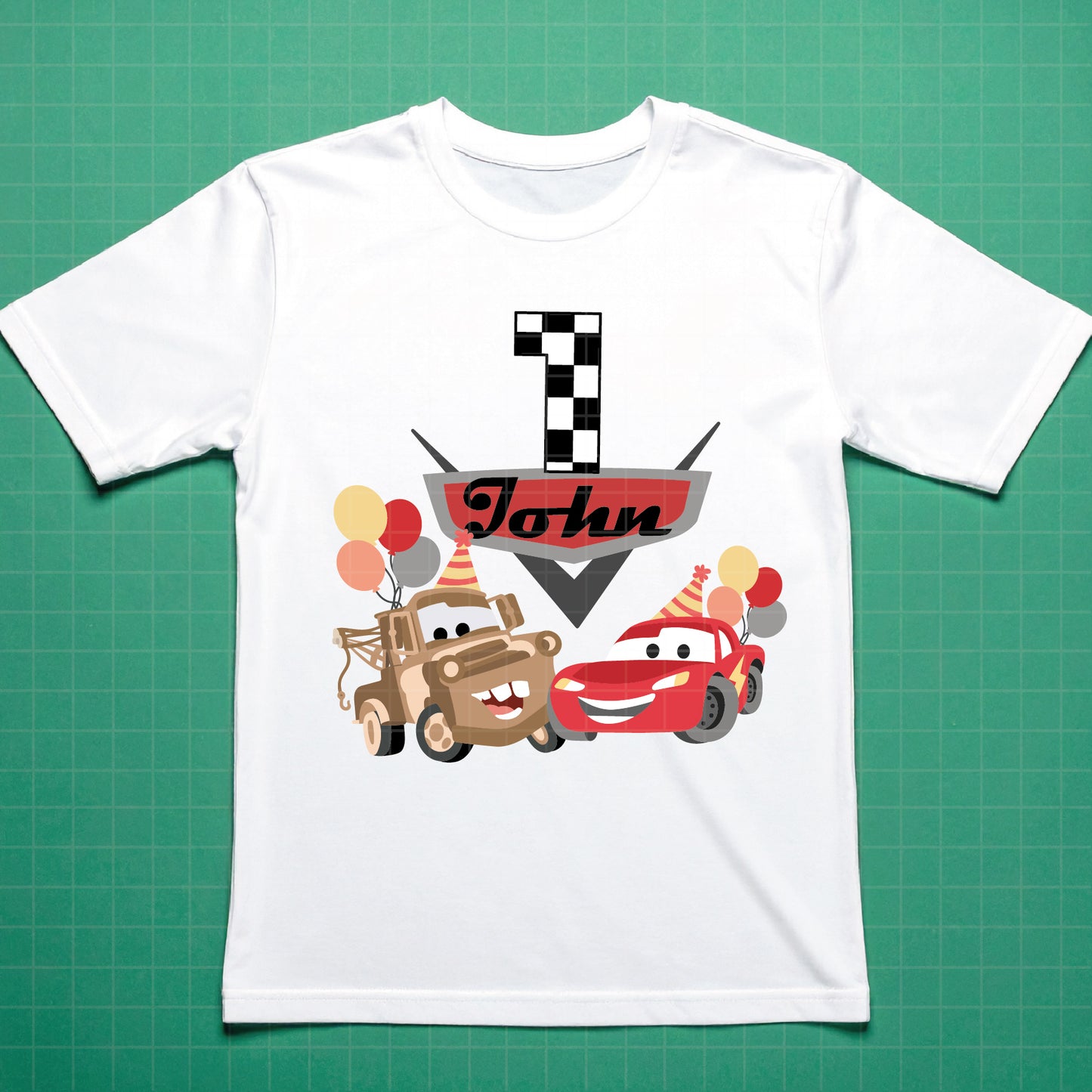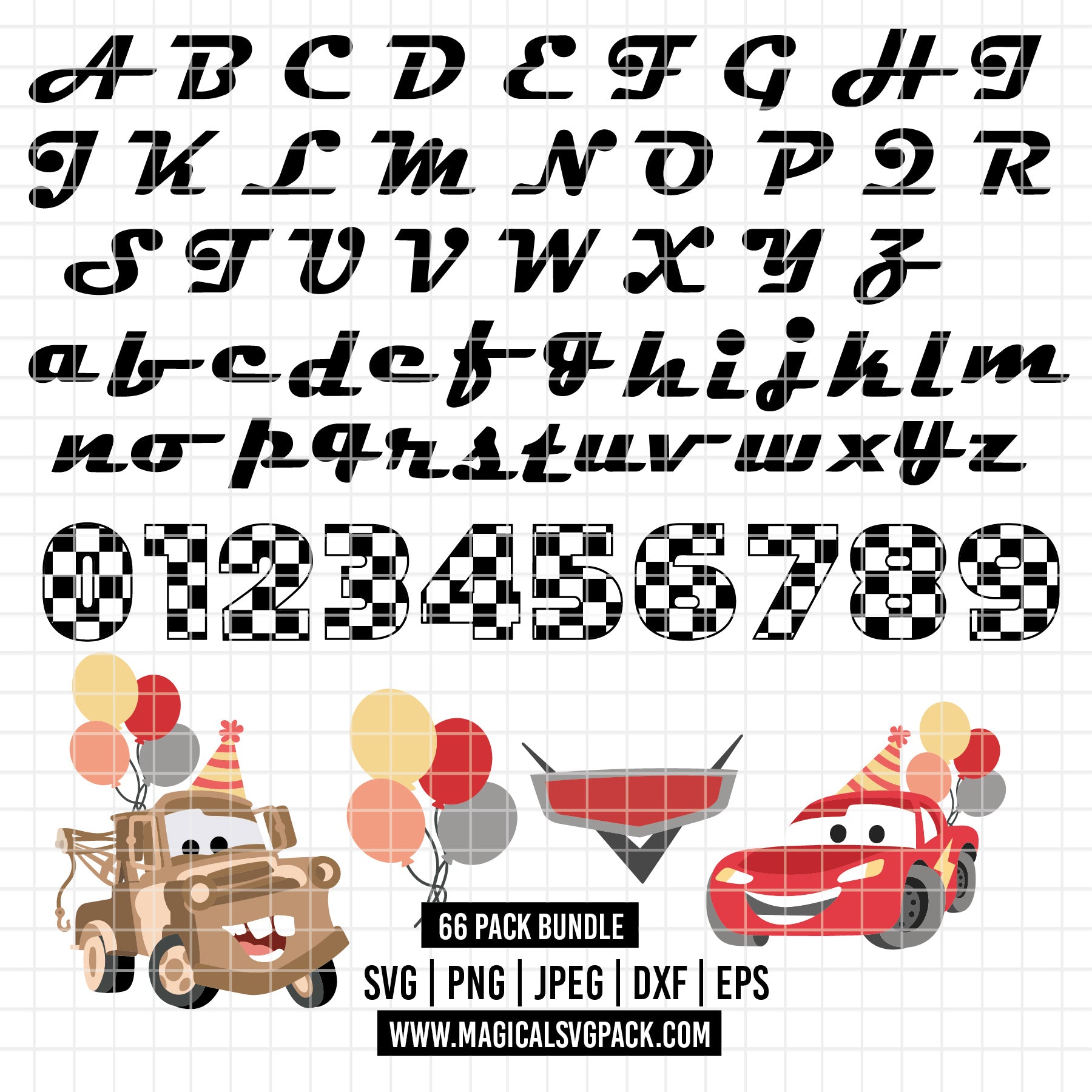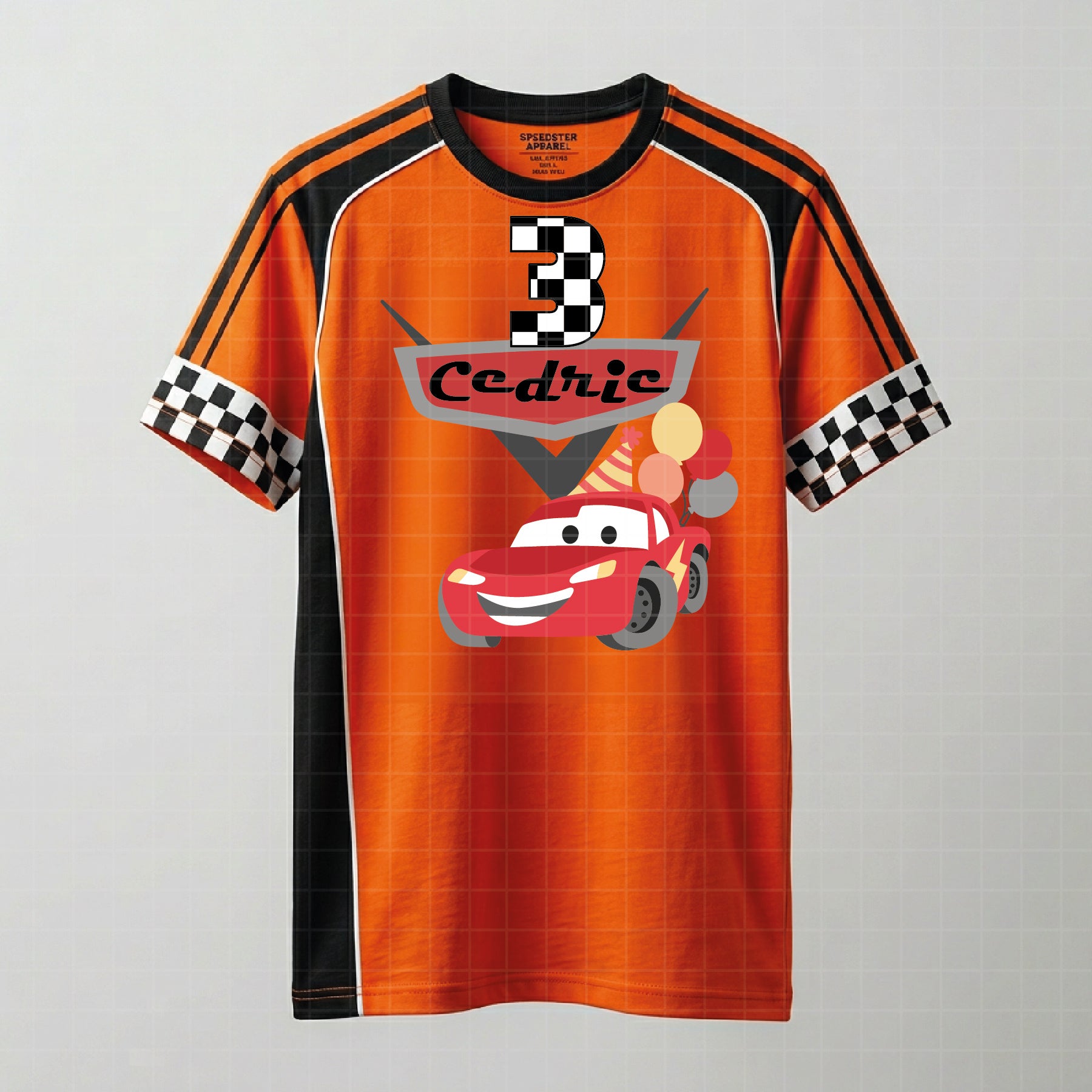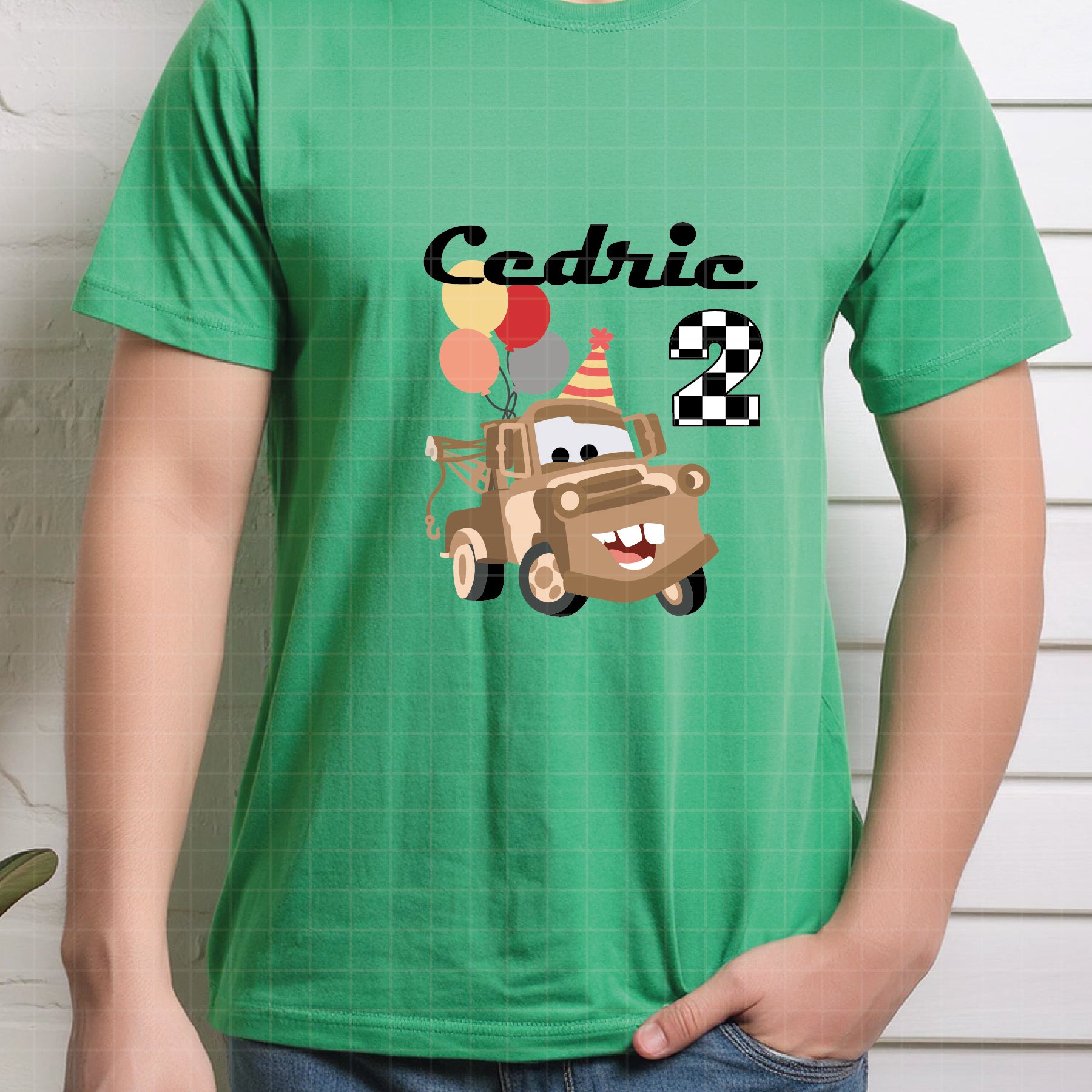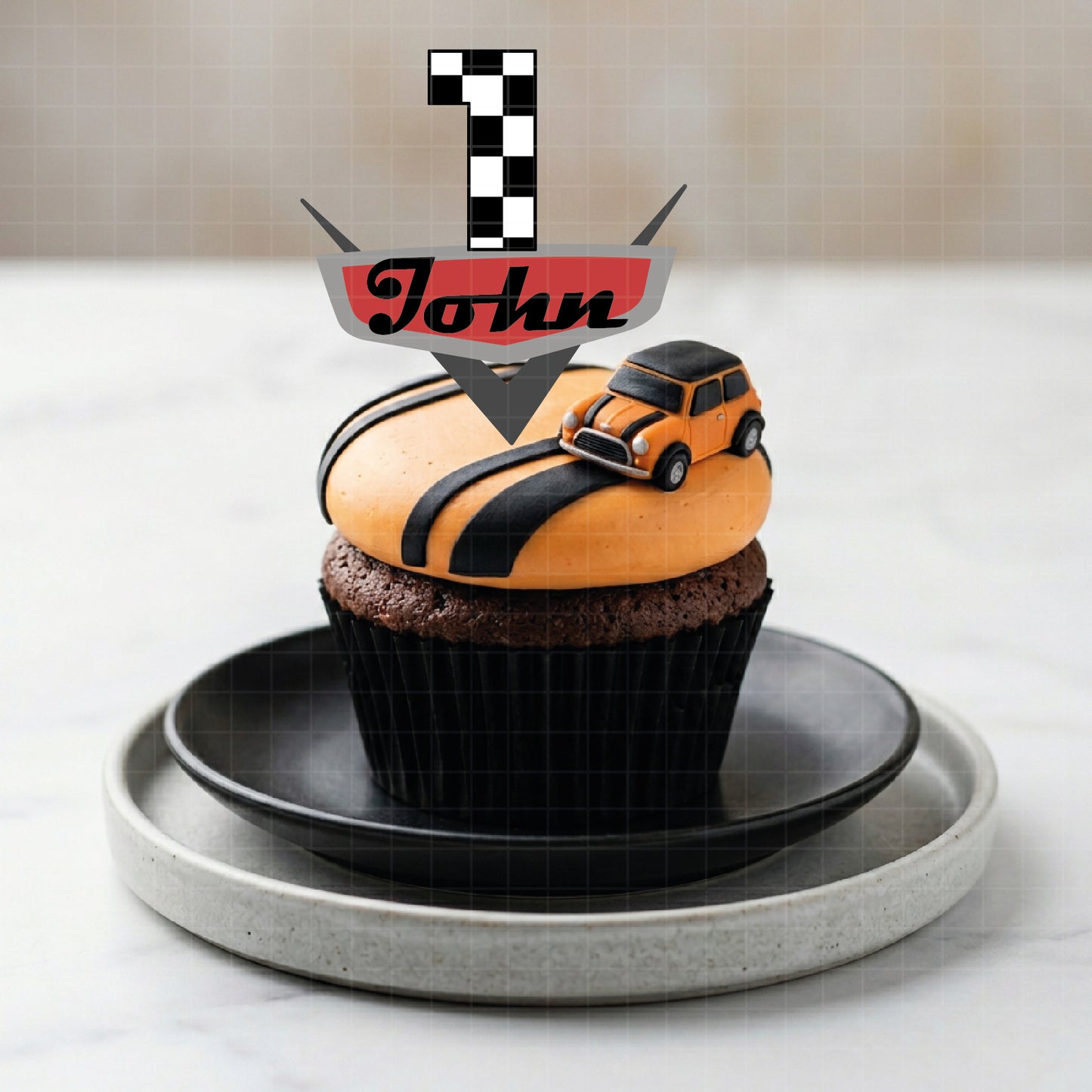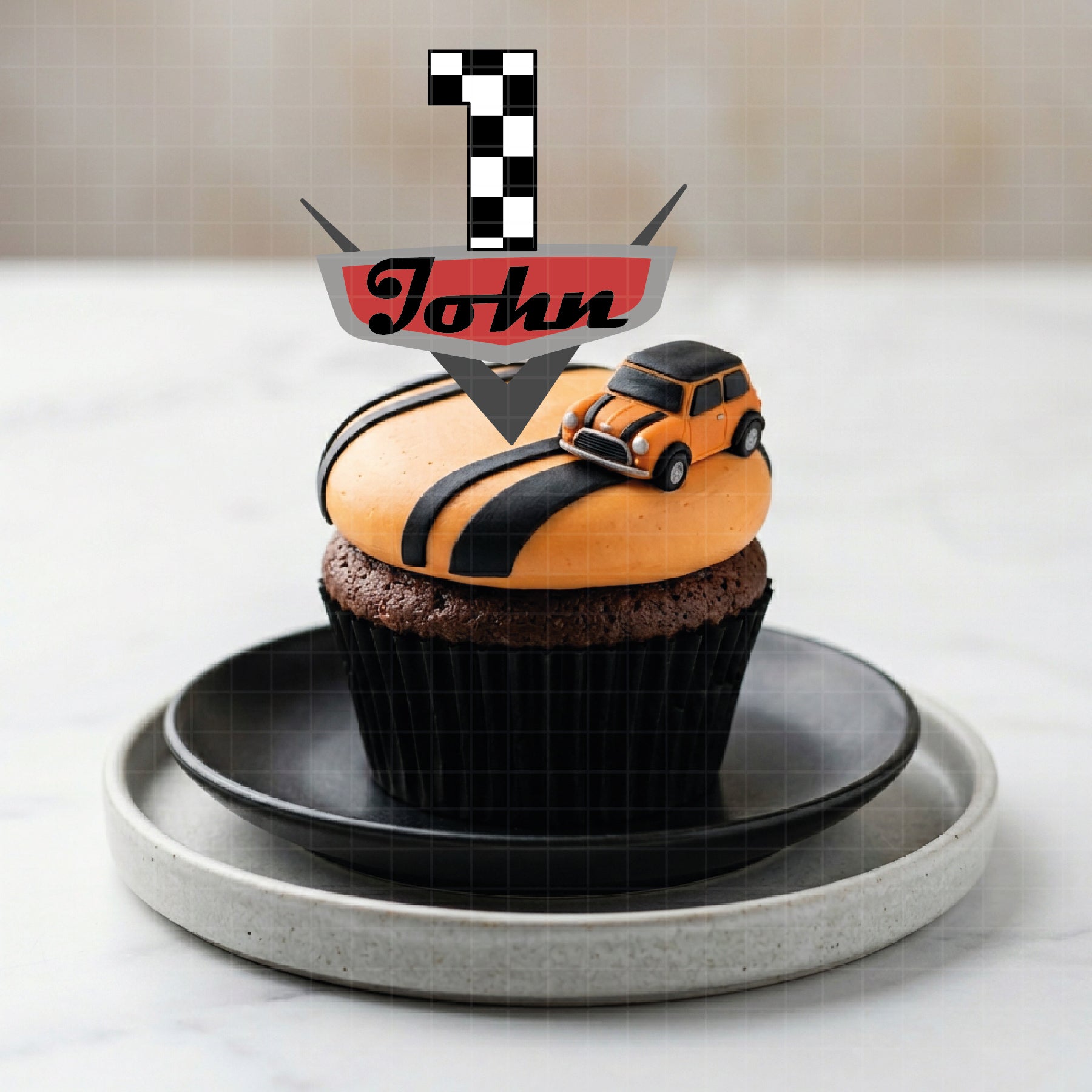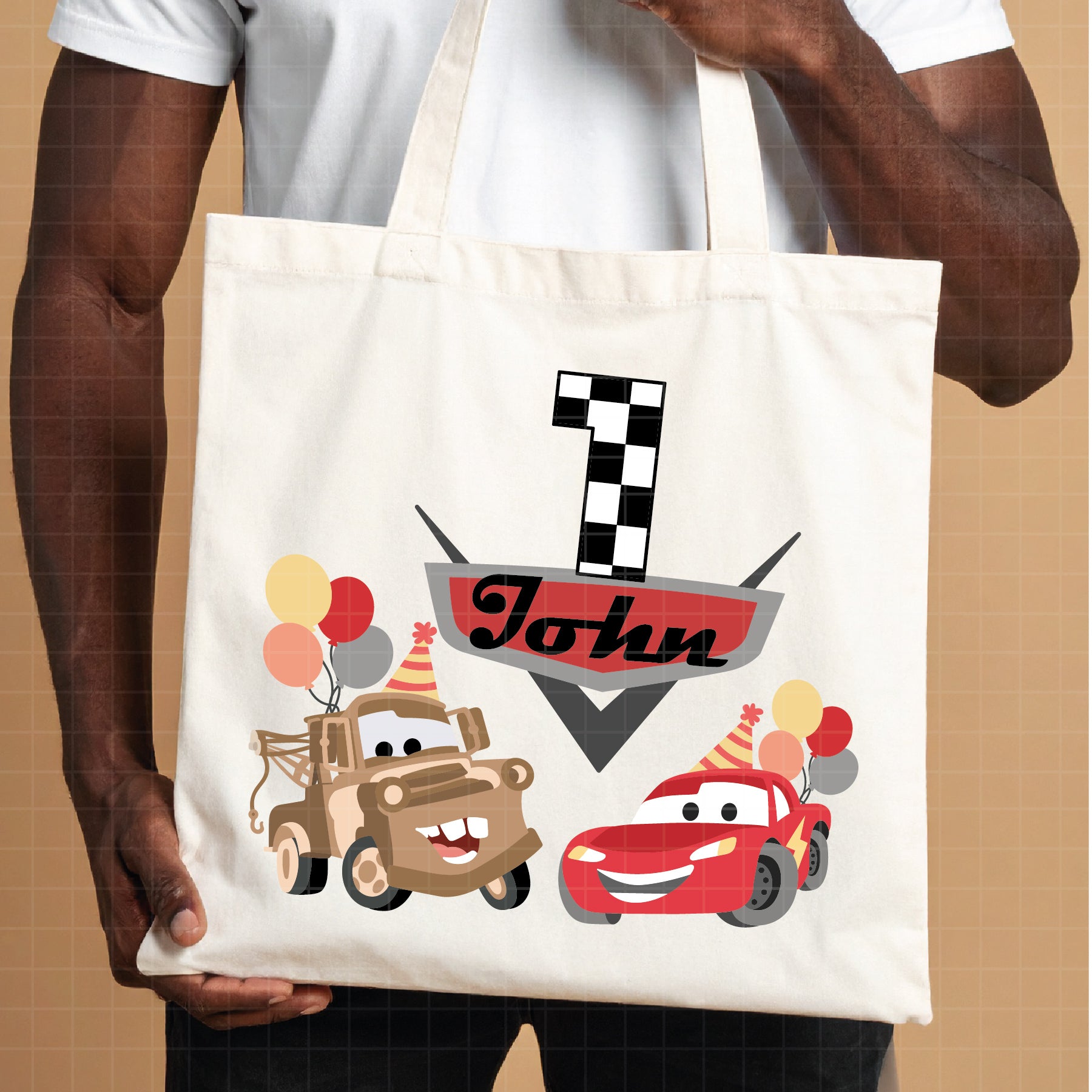
COD6097 - Cars Birthday SVG PNG Bundle. Cricut. Lightning McQueen, Mater, icons, Racing Alphabet Font Uppercase Lowercase, Checkered Numbers.
🏁 CARS BIRTHDAY BUNDLE — Official Logo Style Cursive Font + Lightning McQueen + Mater + Icons + Full Alphabet + Checkered Numbers + Icons.
Use the alphabet and numbers to spell any name or age — then combine with the character cliparts to create fully custom birthday designs, just like the examples shown in the preview images!
✔ Full Alphabet A–Z UPPERCASE (Cars logo style cursive font)
✔ Full Alphabet a–z lowercase (Cars logo style cursive font)
✔ Numbers 0–9 with checkered racing flag design